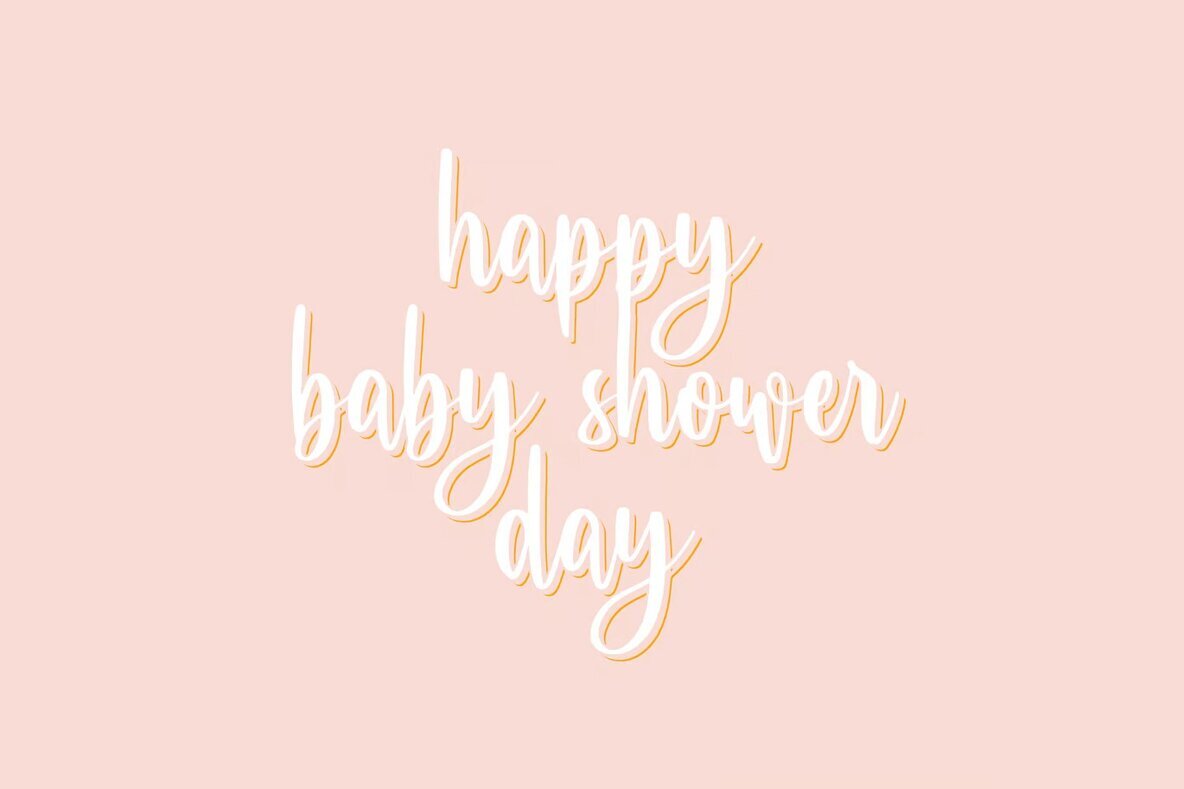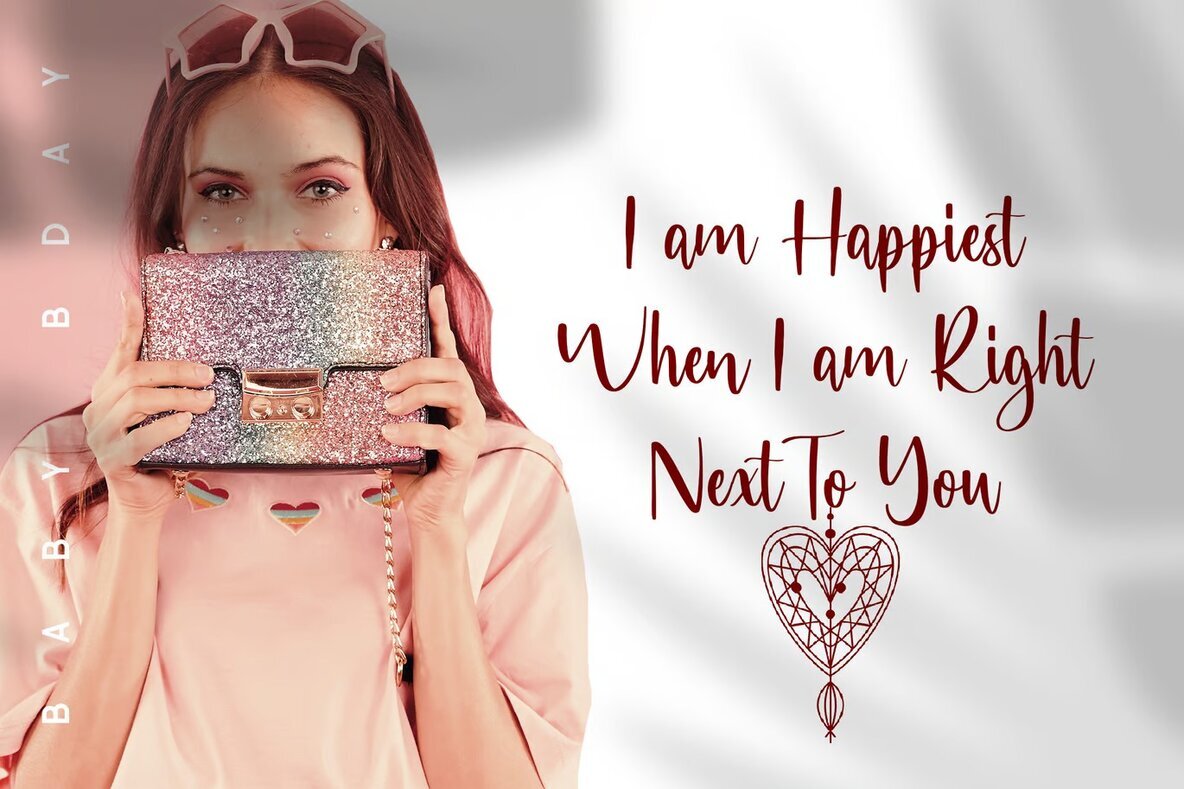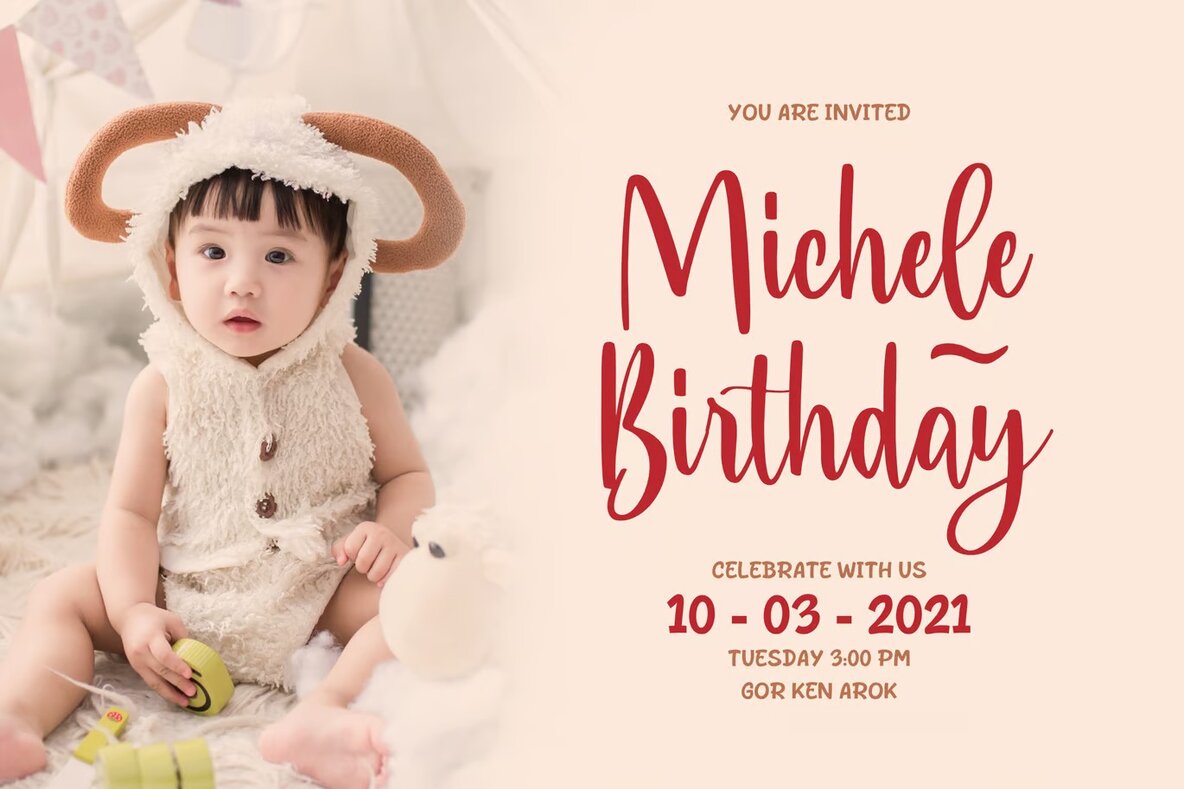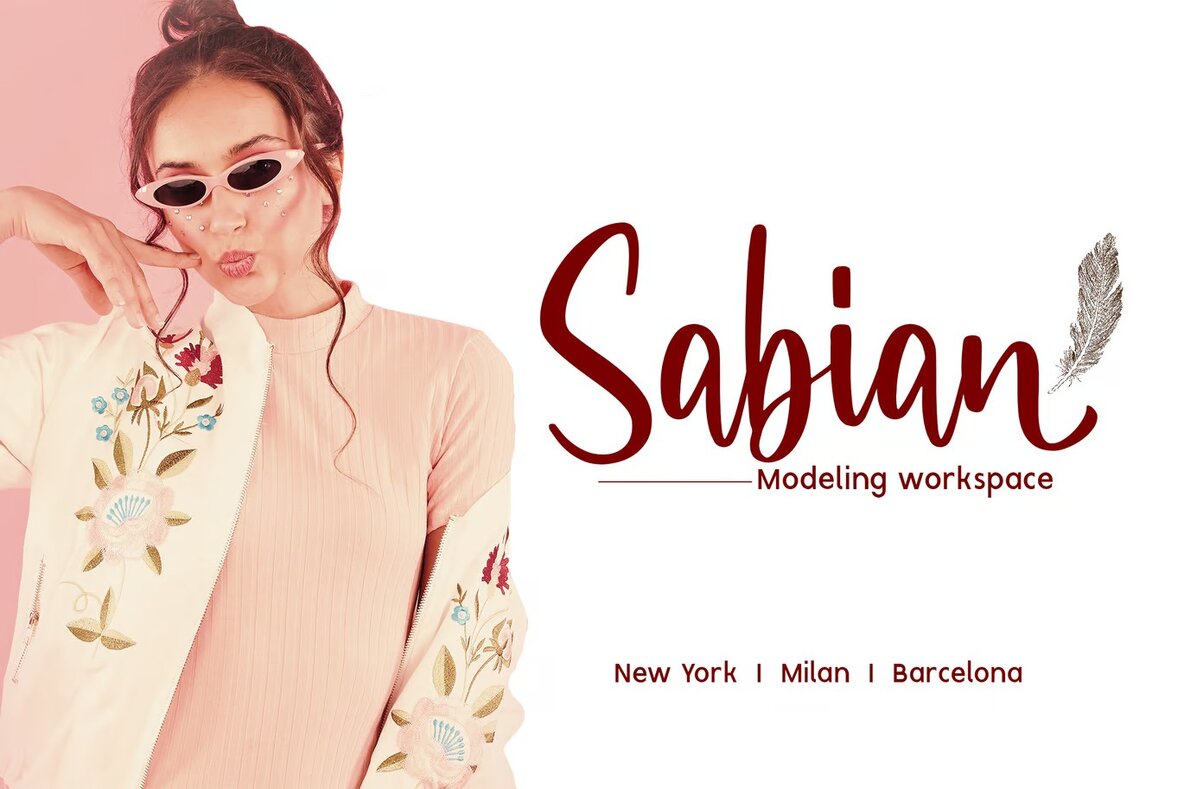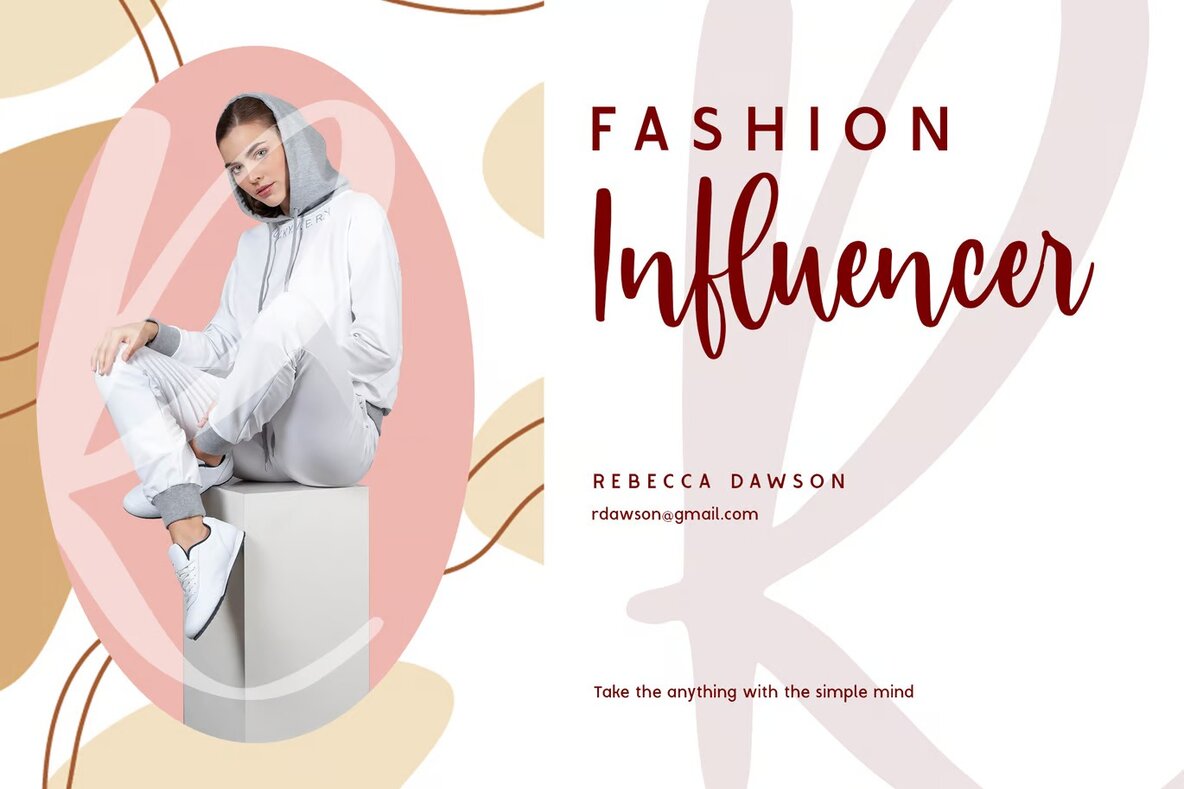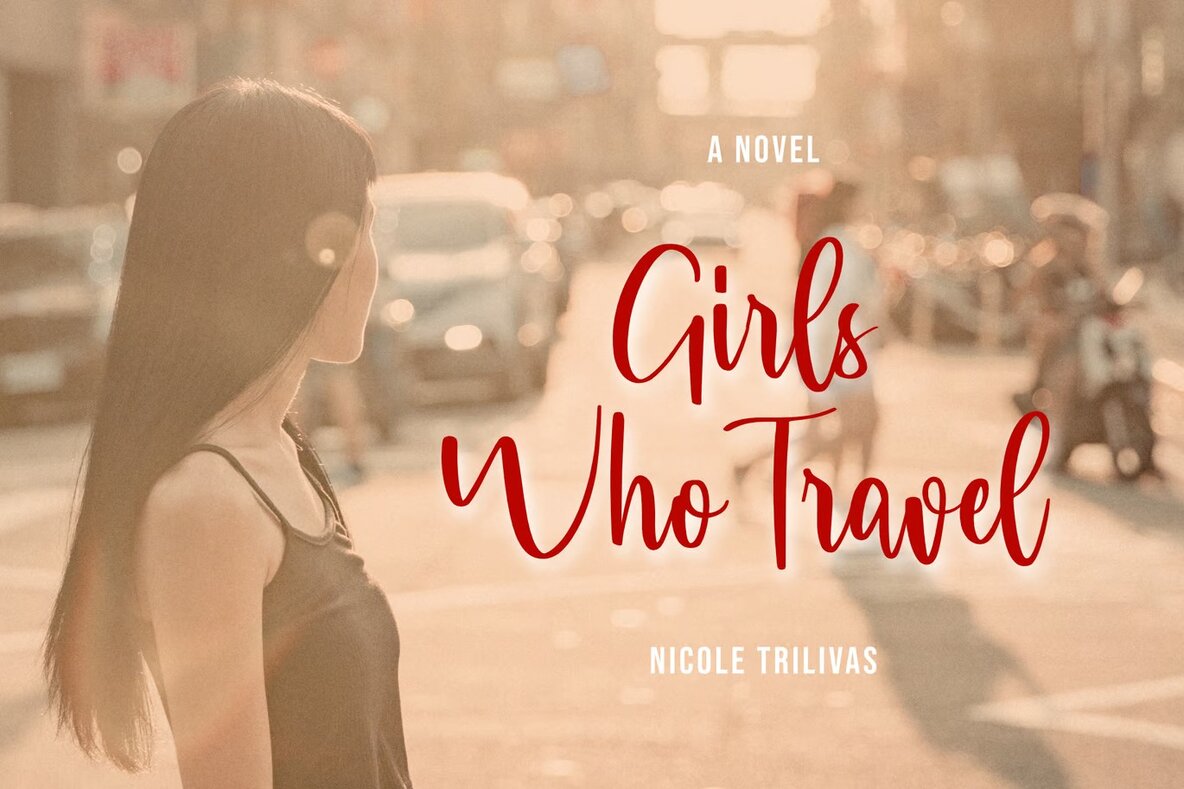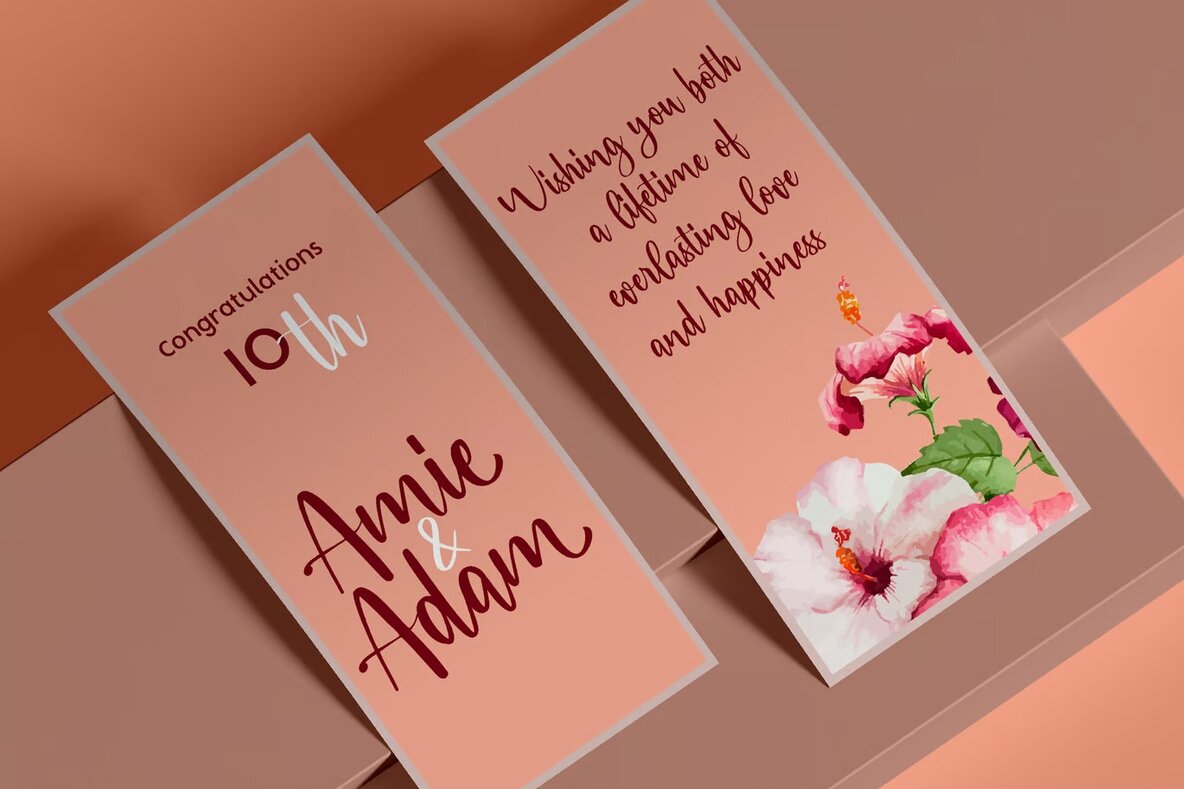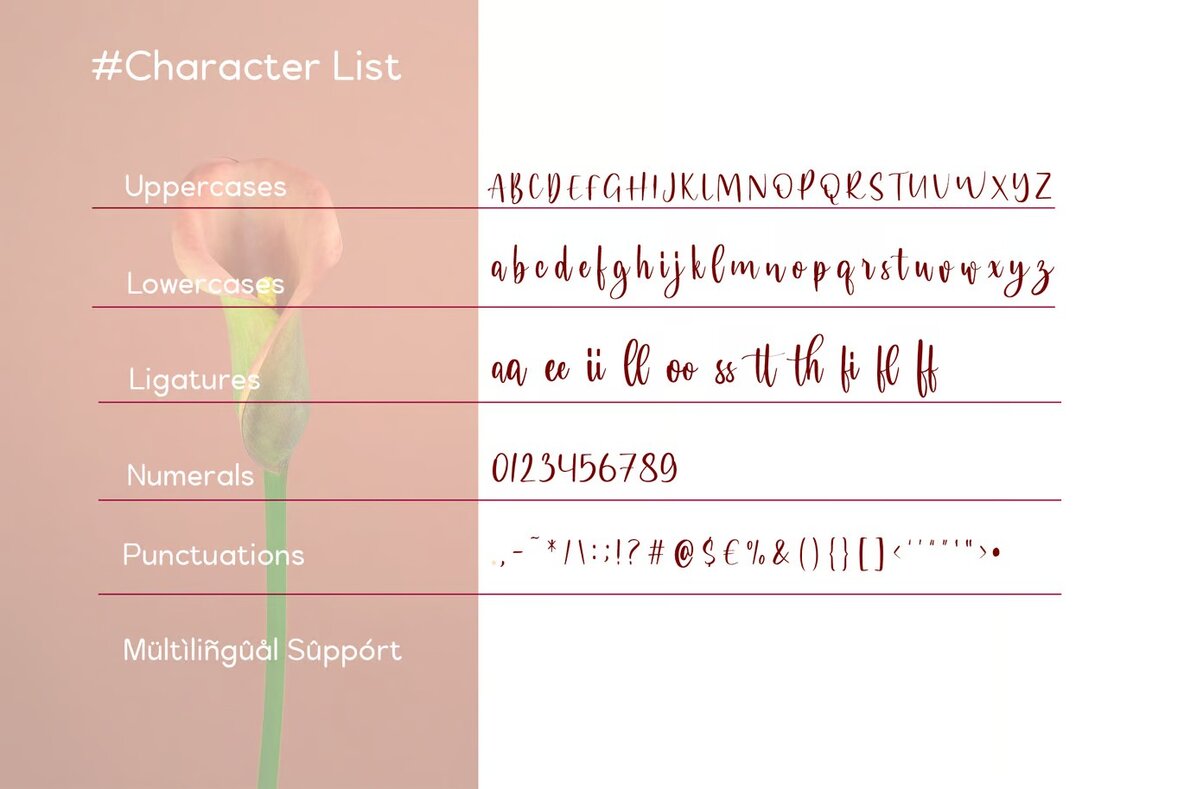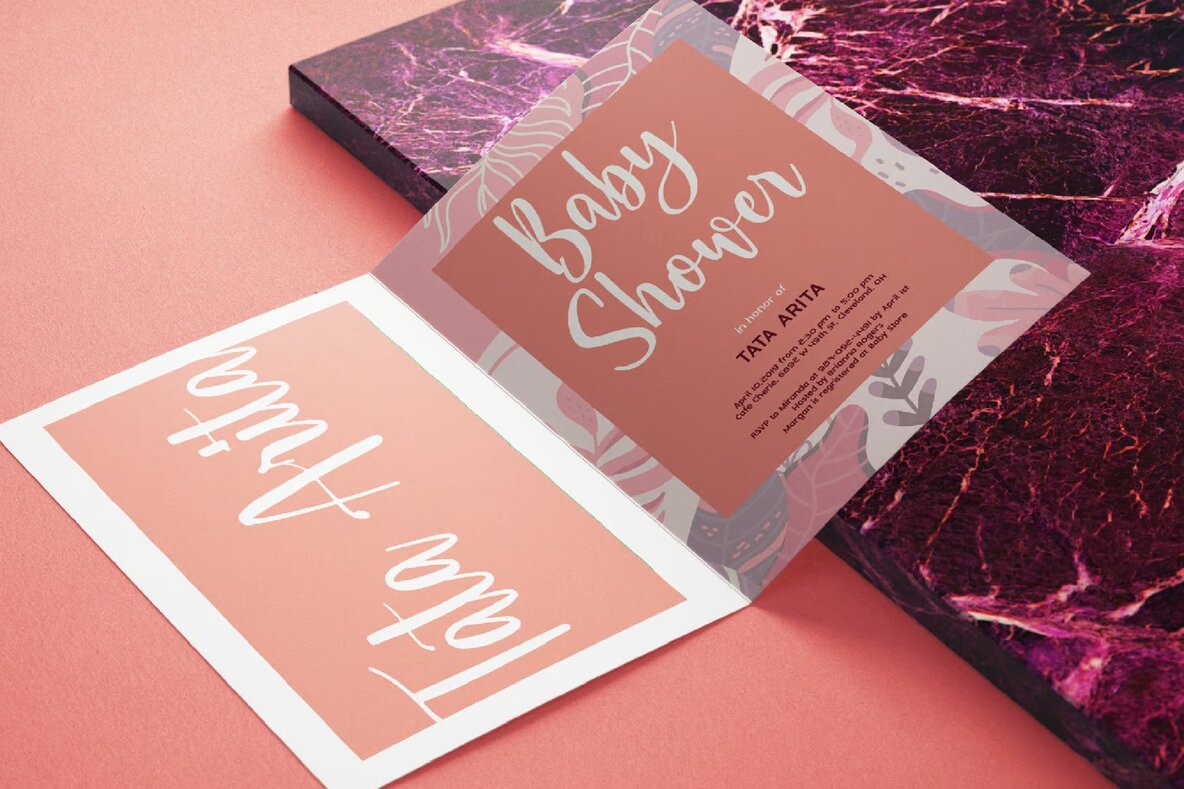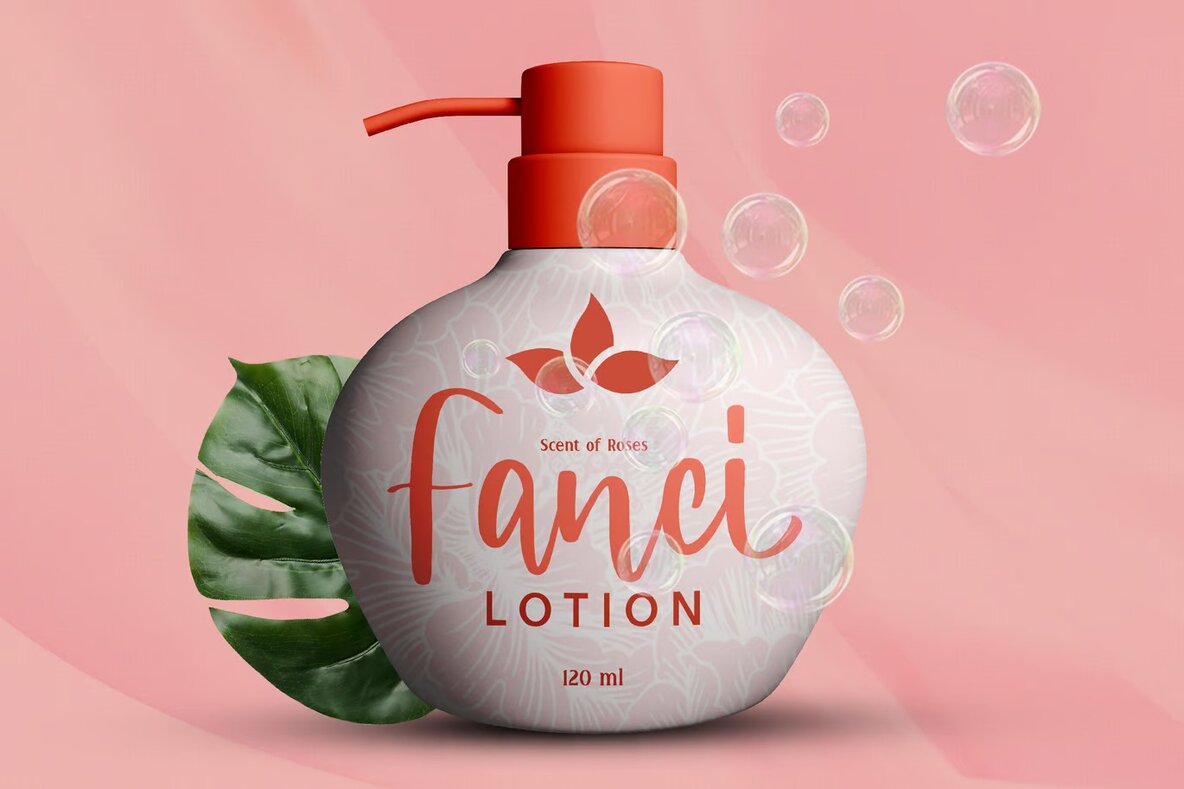
Baby Bday Font
Baby Bday is a charming and versatile brush calligraphy script font, ideal for adding a touch of elegance to your design projects. Featuring ligatures and alternates, this font allows for an easy flow and distinct look that makes it well-suited for wedding designs, baby showers, birthdays, blogs, social media, branding, invitations, and greeting cards. The graceful and playful nature of Baby Bday can enhance any creative work with its beautiful calligraphy style.
Designed to offer creative flexibility, the ligatures and alternates in Baby Bday provide numerous combinations to craft stunning calligraphy designs. Whether you need a sophisticated script for a special occasion or a whimsical style for fun social media posts, this font seamlessly adapts to various applications, bringing a unique flair to your projects.